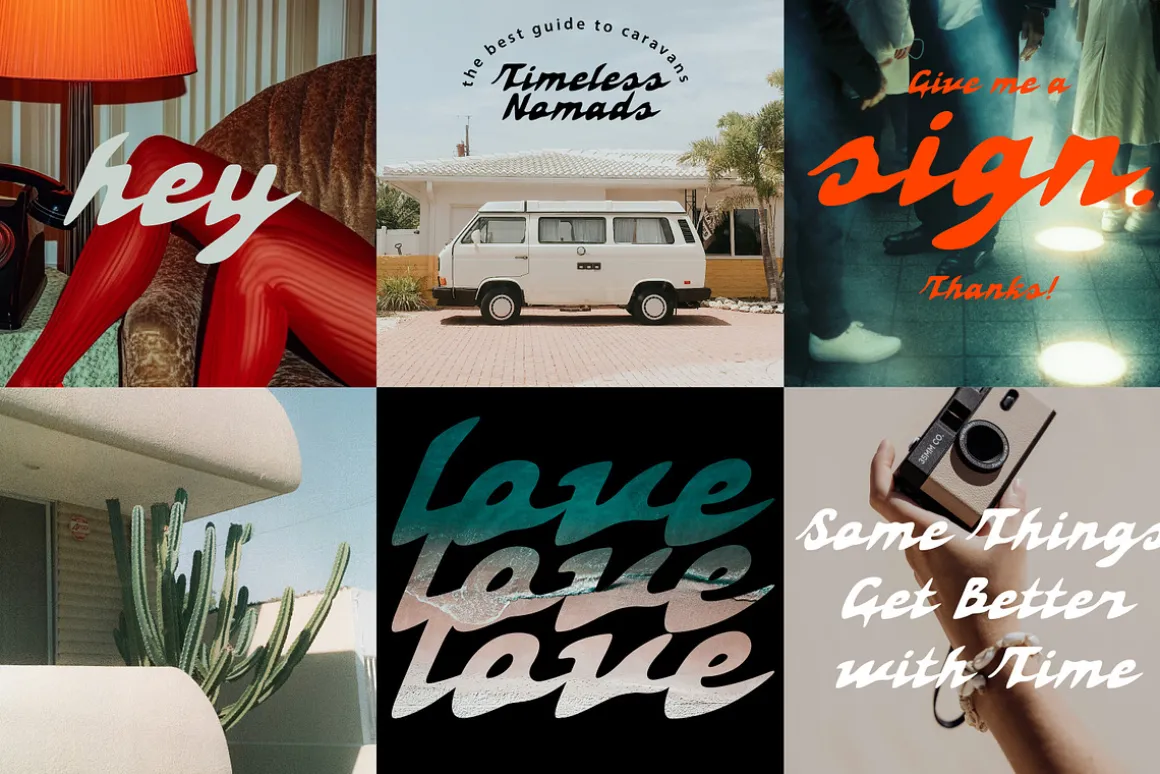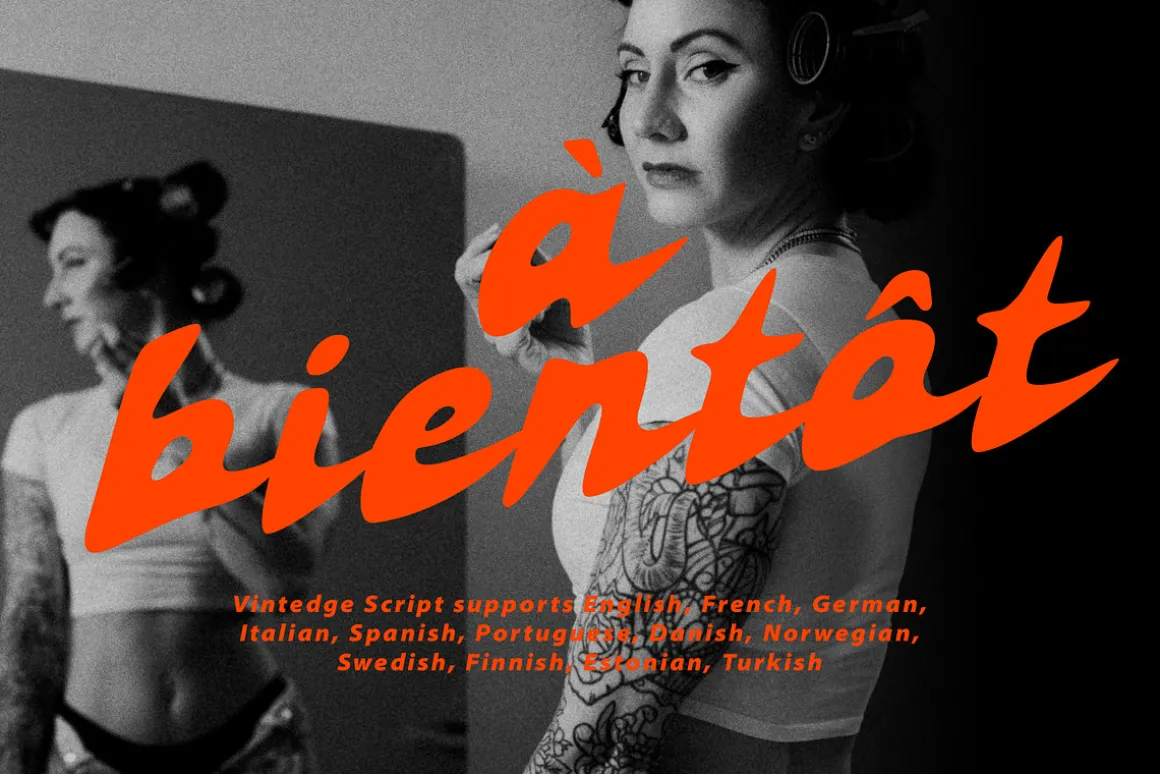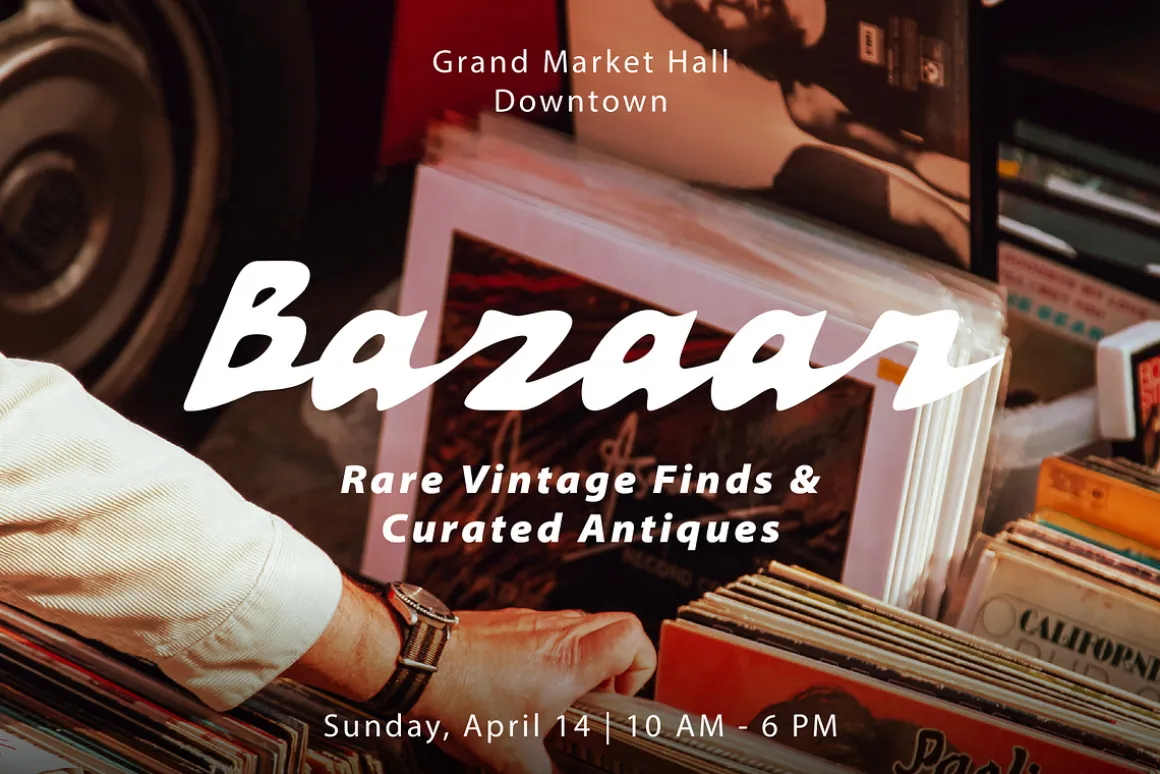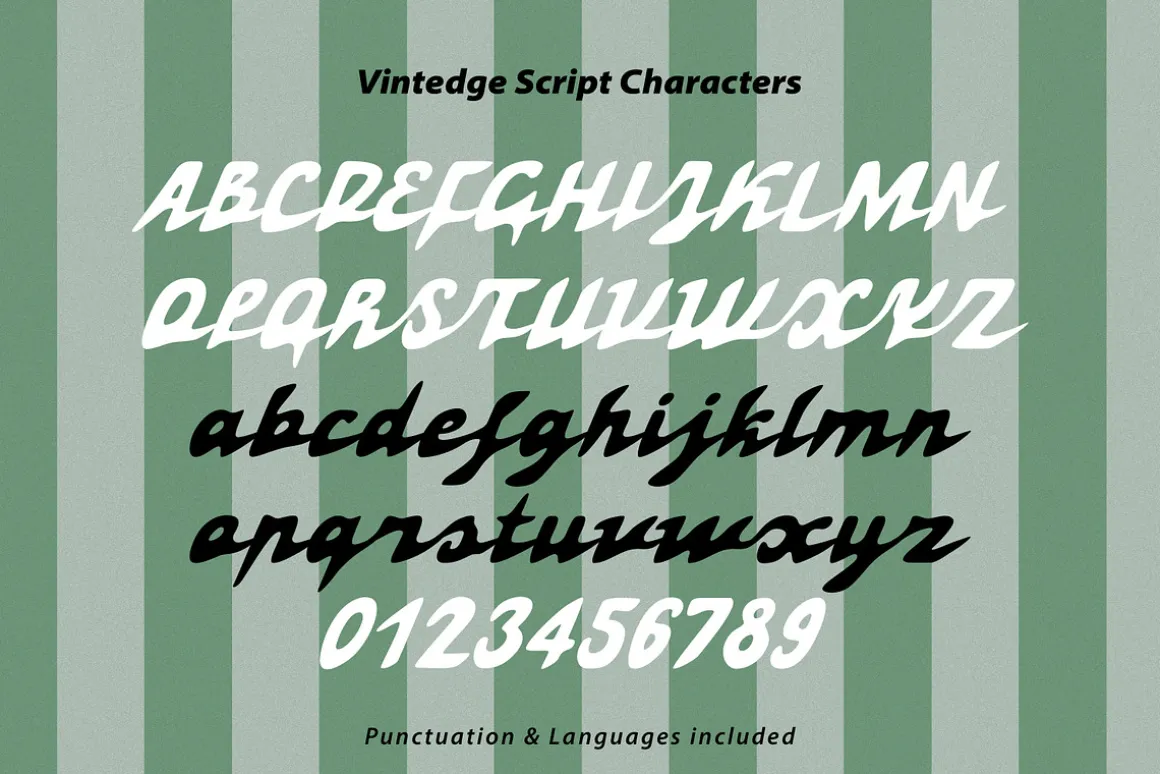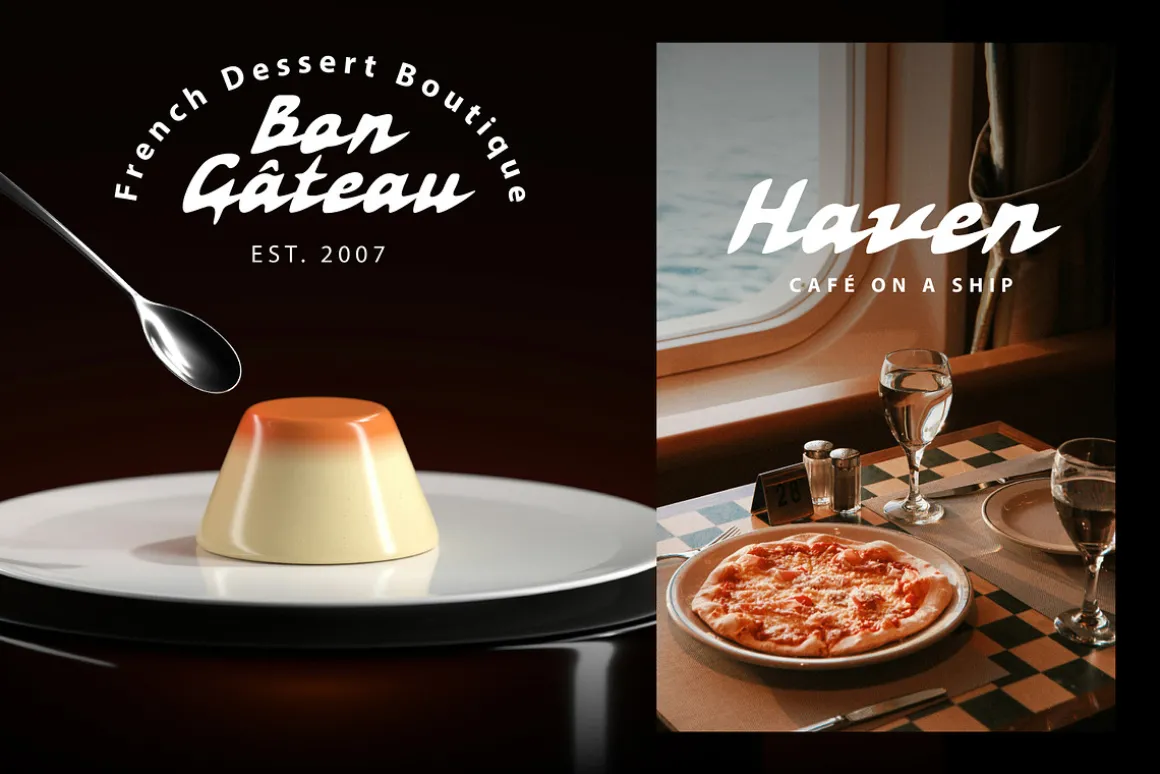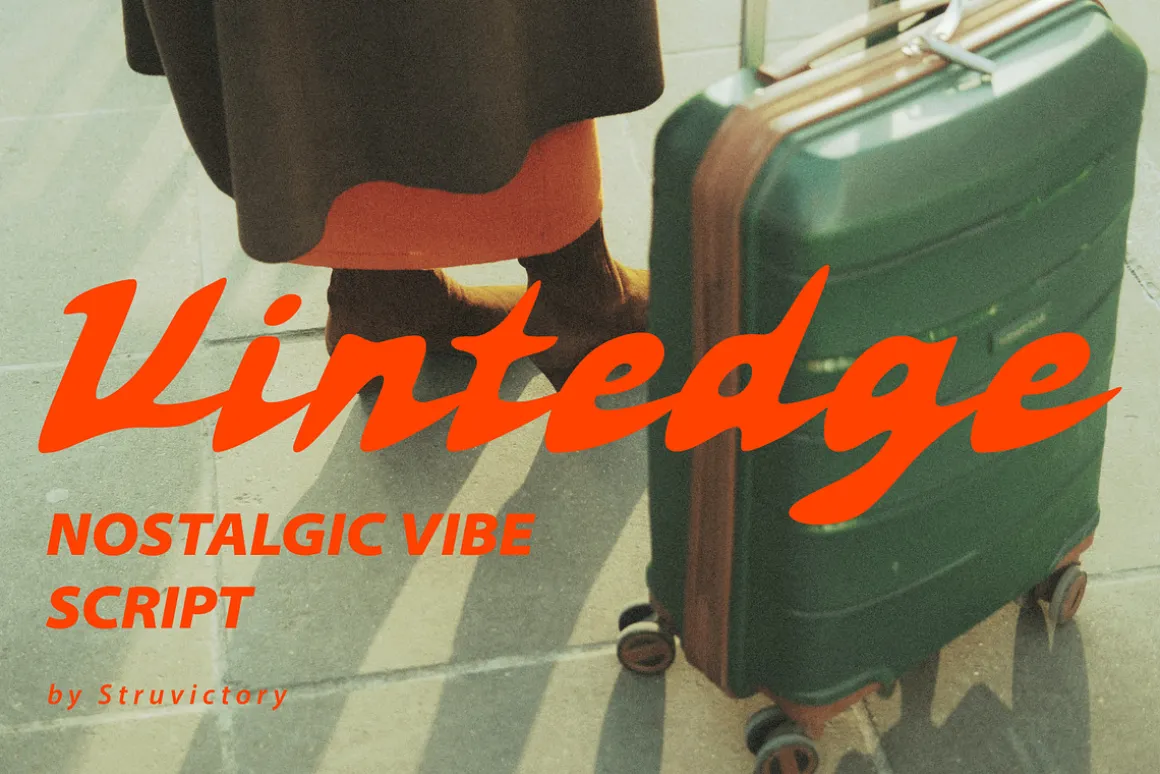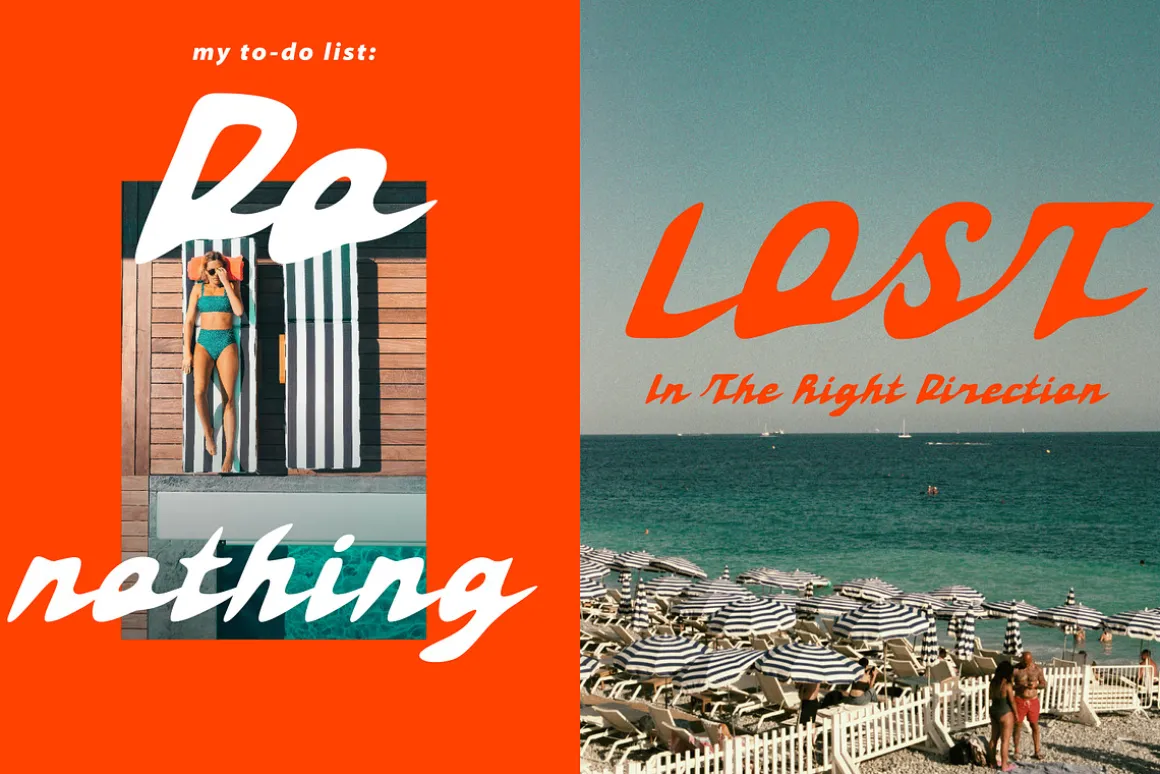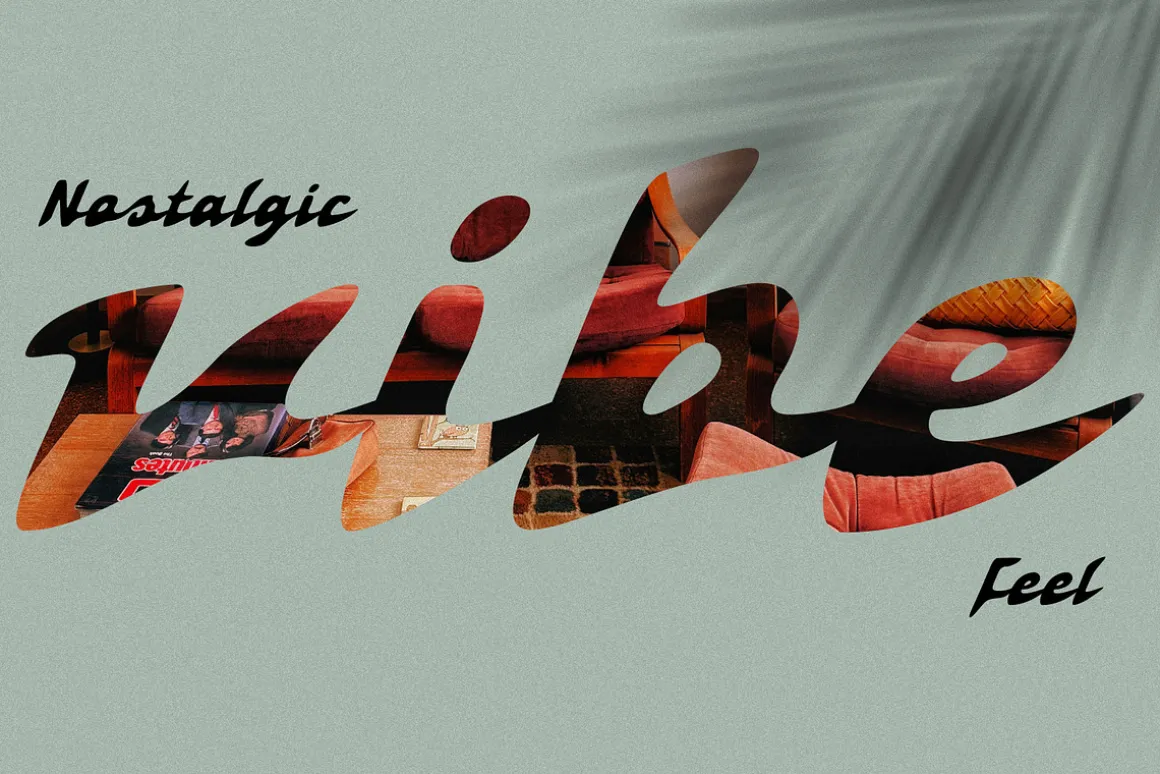
Meet Vintedge Script – where nostalgia meets sharp energy. This slanted, hand-drawn typeface cuts through the ordinary with its bold, angular strokes and dynamic motion. Inspired by vintage labels, retro signage, and mid-century typography, it carries a distinct edge – confident, fast, and full of attitude. No soft curves here – just crisp, high-impact letterforms that make every word stand out. Perfect for branding, posters, apparel, and statement designs, Vintedge Script brings a punch of retro rebellion to your work. Ready to make an impact? Get it today and bring the past forward with style.
Vintedge supports the most popular latin-based languages, you can check the symbol you need by typing a couple of words in the font preview box.